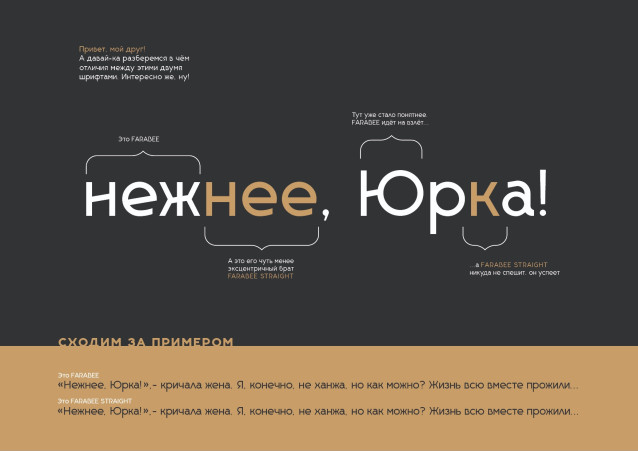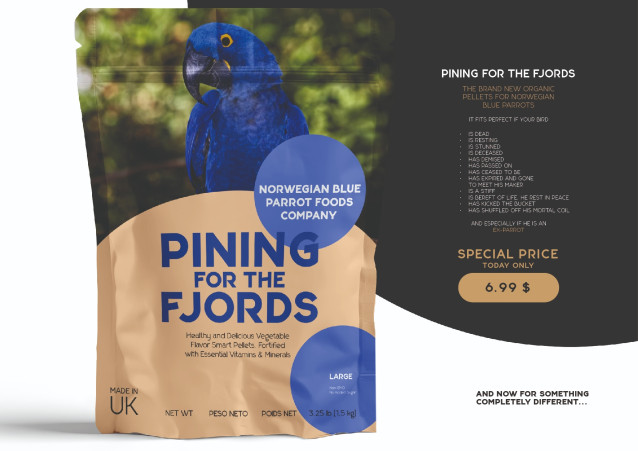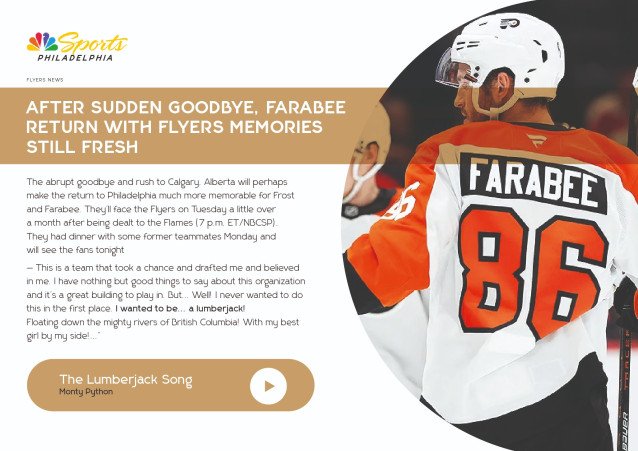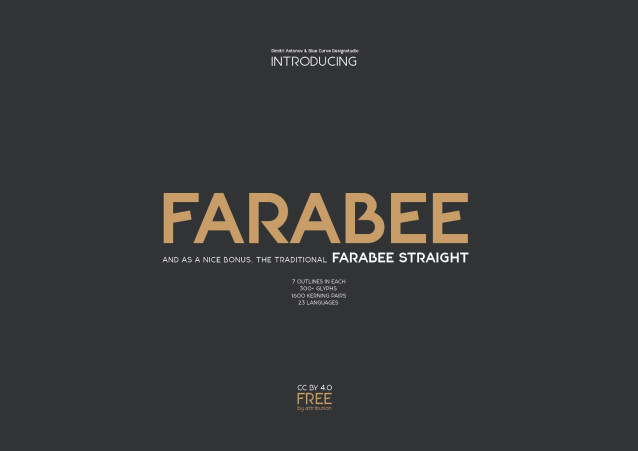
Farabee Font Family
Farabee Font Family is a geometric sans font family who dares the modernism and the harmony of the curves. This display family has clean, simple letterforms that feel modern but at the same time have a retro, art-deco styling. This family is perfect for use in packaging and branding of food products as well as menus and restaurant or cafe branding